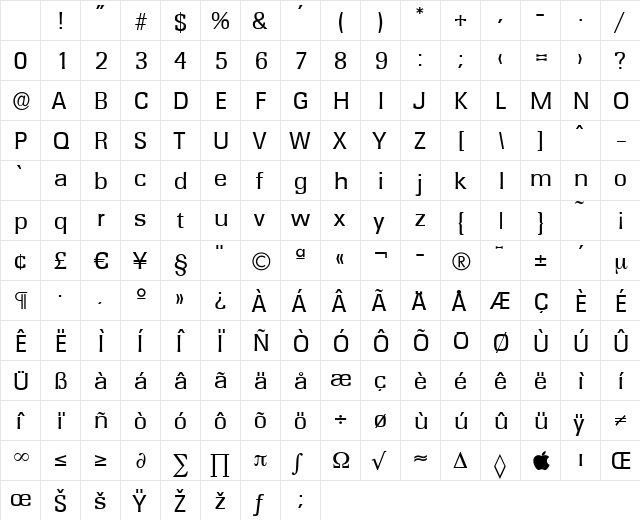
Complete WalterBecker Regular glyph index. Displaying only characters natively supported by WalterBecker Regular font.
WalterBecker is a composed and adaptable typeface that performs quietly and consistently across a wide range of design contexts.